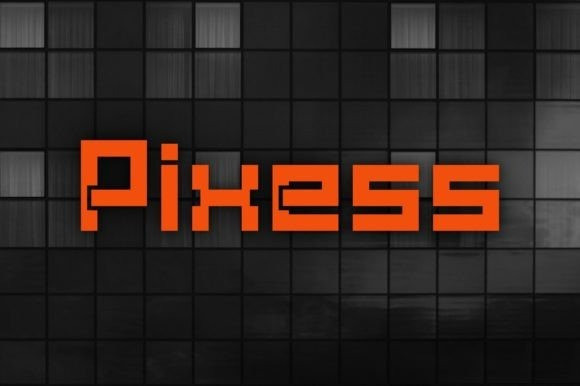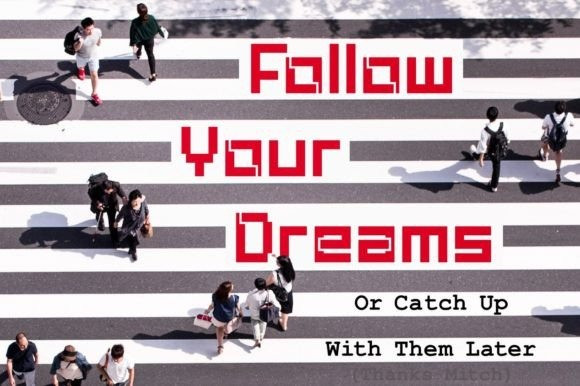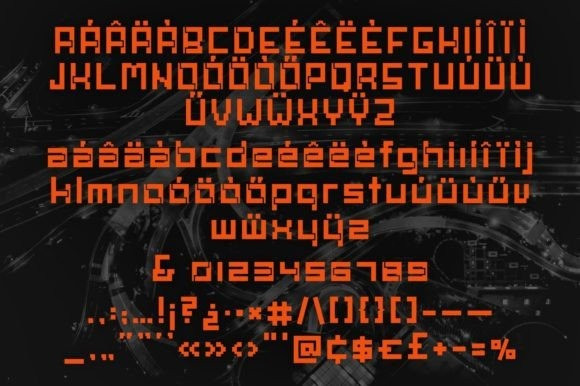
Pixess Font
Pixess is a bold and square lettered display font. It will elevate a wide range of designs, from cards to labels, games, videos, posters, headlines and much more.